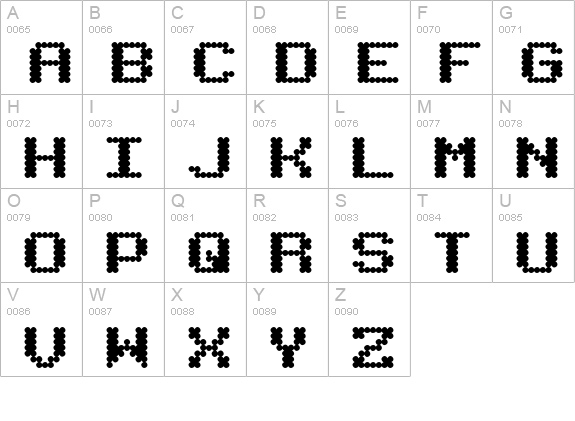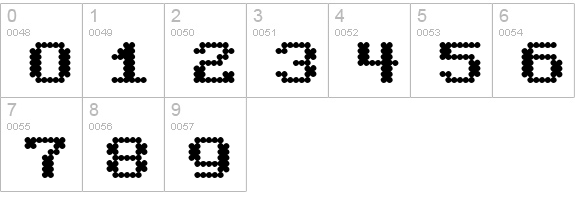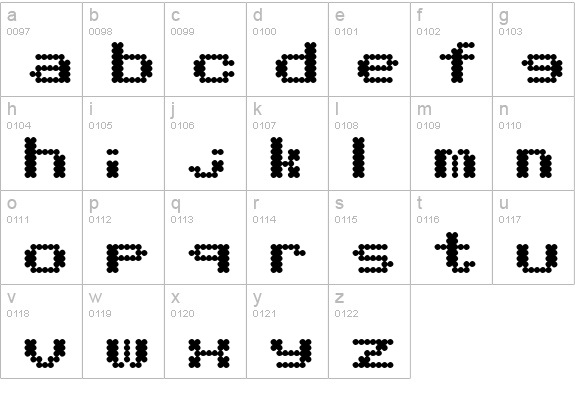
BubbleBath Font Details
Introducing BubbleBath font, a whimsical and playful typeface perfect for adding a touch of fun to your designs. This delightful font features bubbly letterforms that exude a sense of cheerfulness and lightheartedness. With its unique style and charming appeal, BubbleBath font is sure to bring a smile to your audience's faces. The best part? BubbleBath font is completely free to download at FontsMarket.com. Whether you're working on a birthday invitation, a children's book, or simply want to infuse some joy into your projects, BubbleBath font is the perfect choice. Embrace the carefree spirit of this font and let your creativity soar with its cheerful and bubbly characters. Download BubbleBath font now and add a splash of fun to your designs!